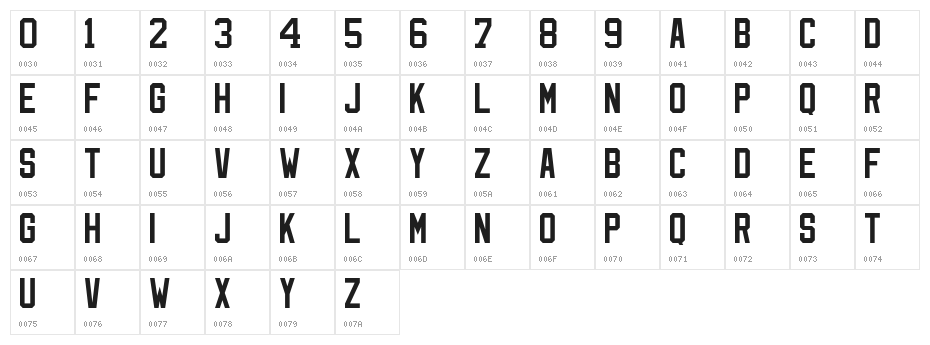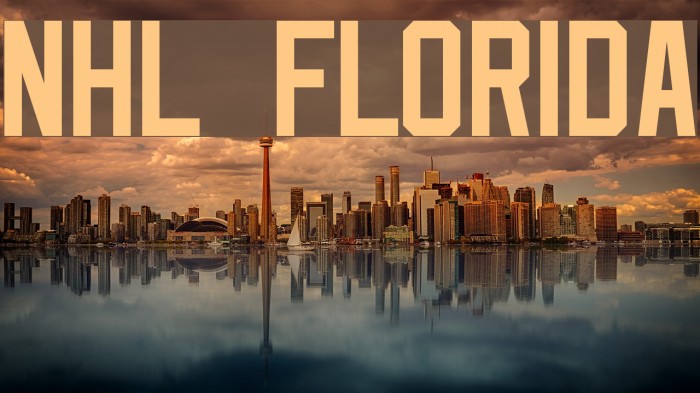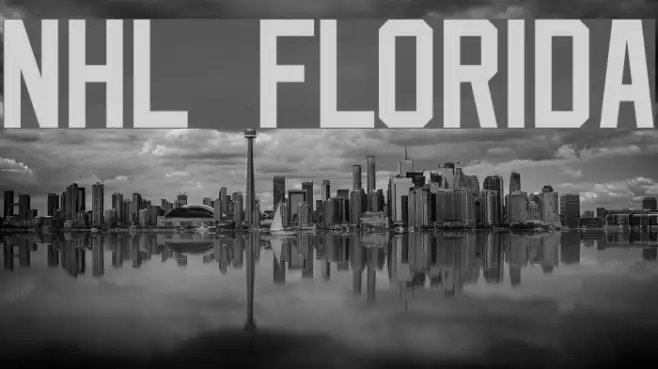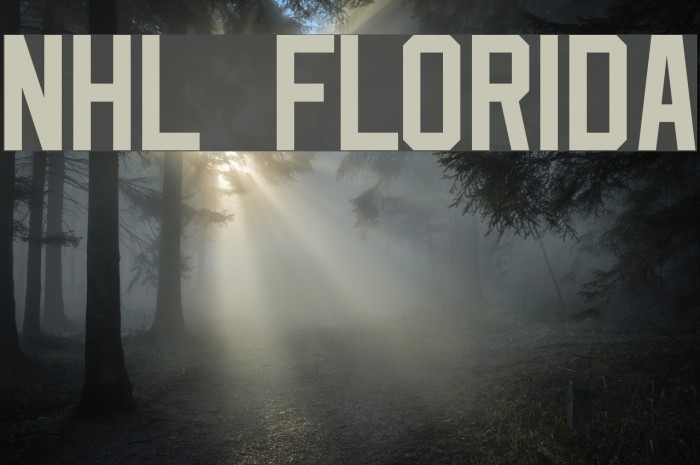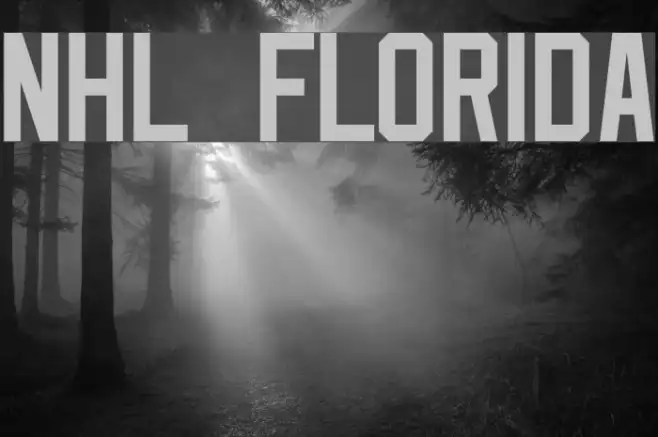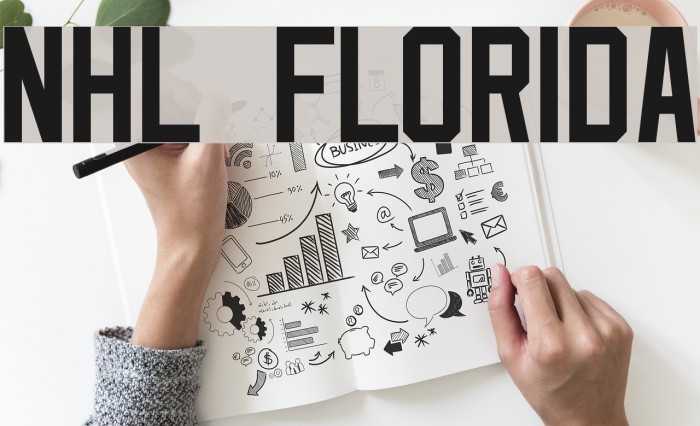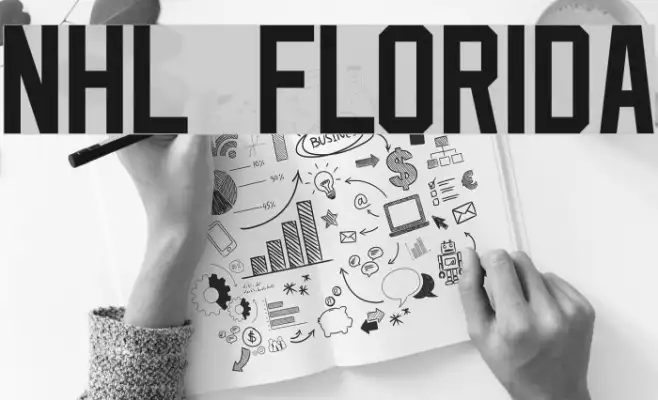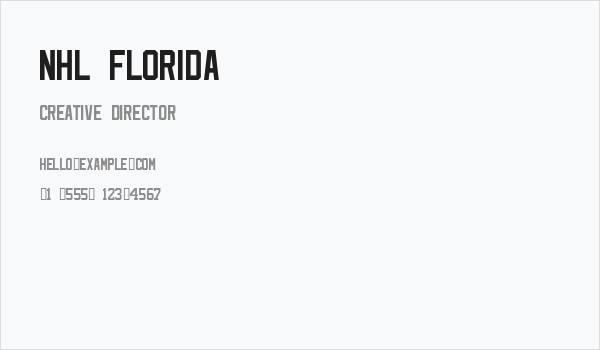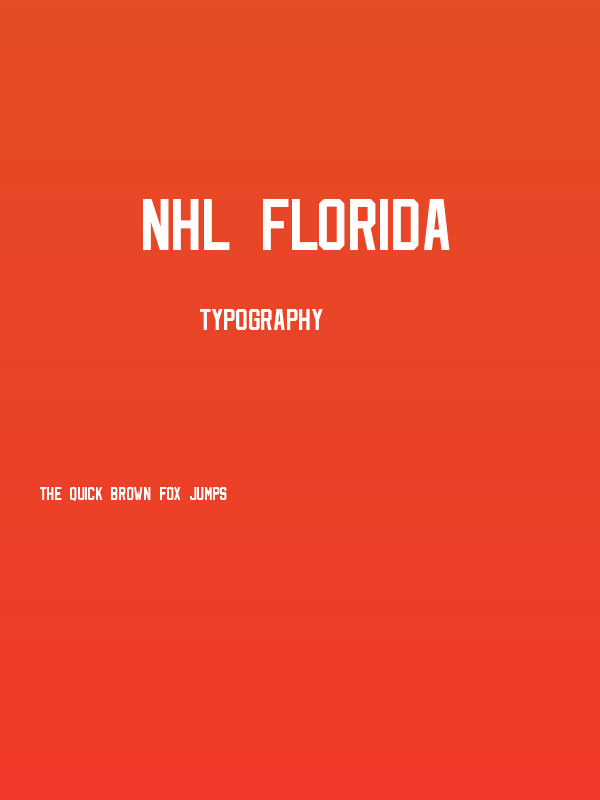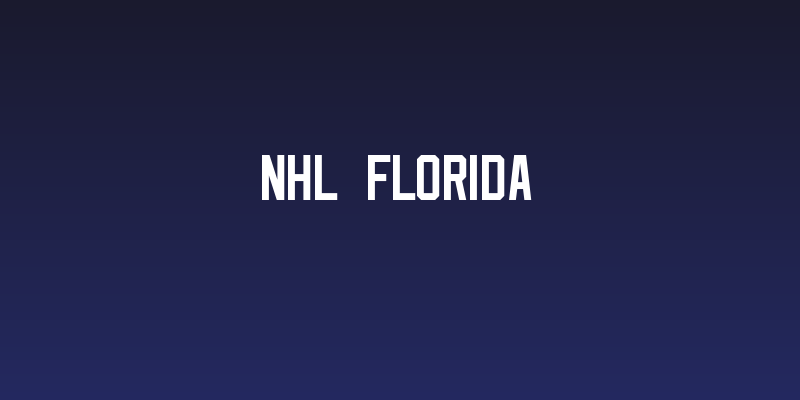
NHL Florida Font
NHL Florida Description
This font features a bold, geometric design with strong, angular lines and a modern aesthetic. The uppercase letters are uniform in height, creating a cohesive and structured appearance. The numbers follow the same bold style, ensuring consistency across all characters. The font's design is reminiscent of sports team branding, with its assertive and impactful presence. It lacks lowercase letters and special characters, focusing on a straightforward, no-nonsense style. The overall look is clean and professional, making it suitable for various display purposes.
| Proposed Projects | Ideal for sports branding, team jerseys, posters, and headlines. |